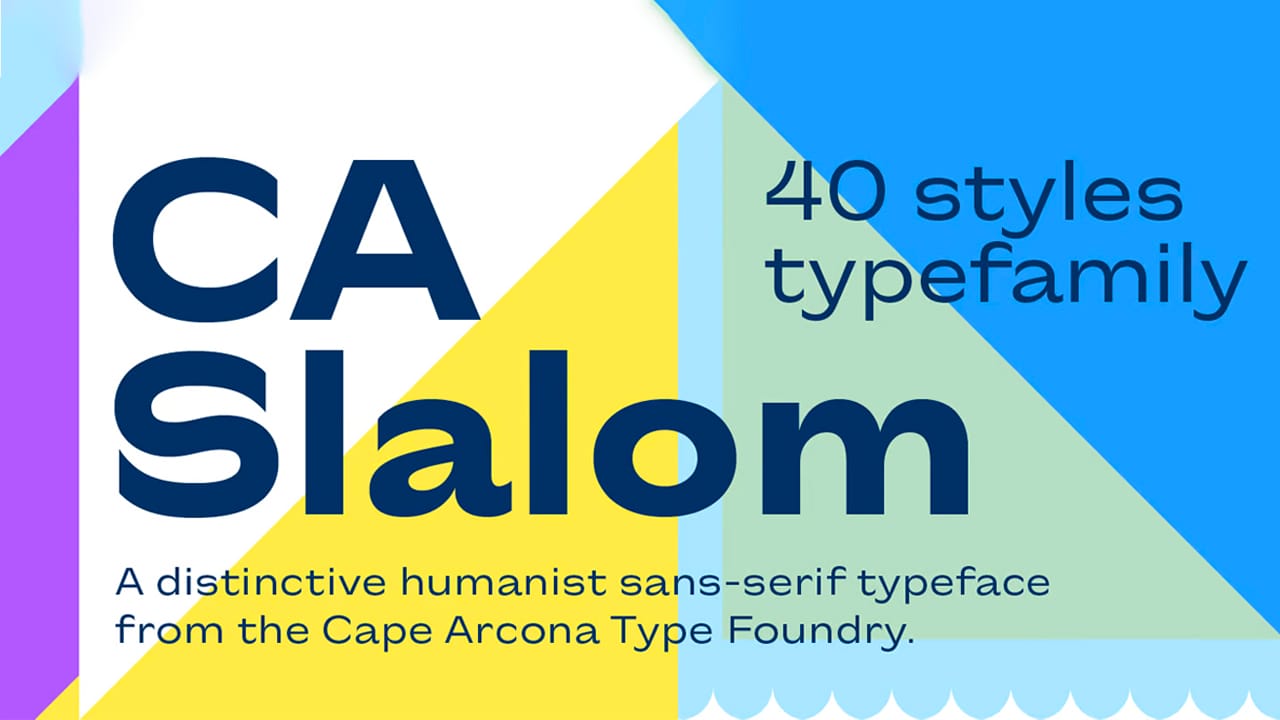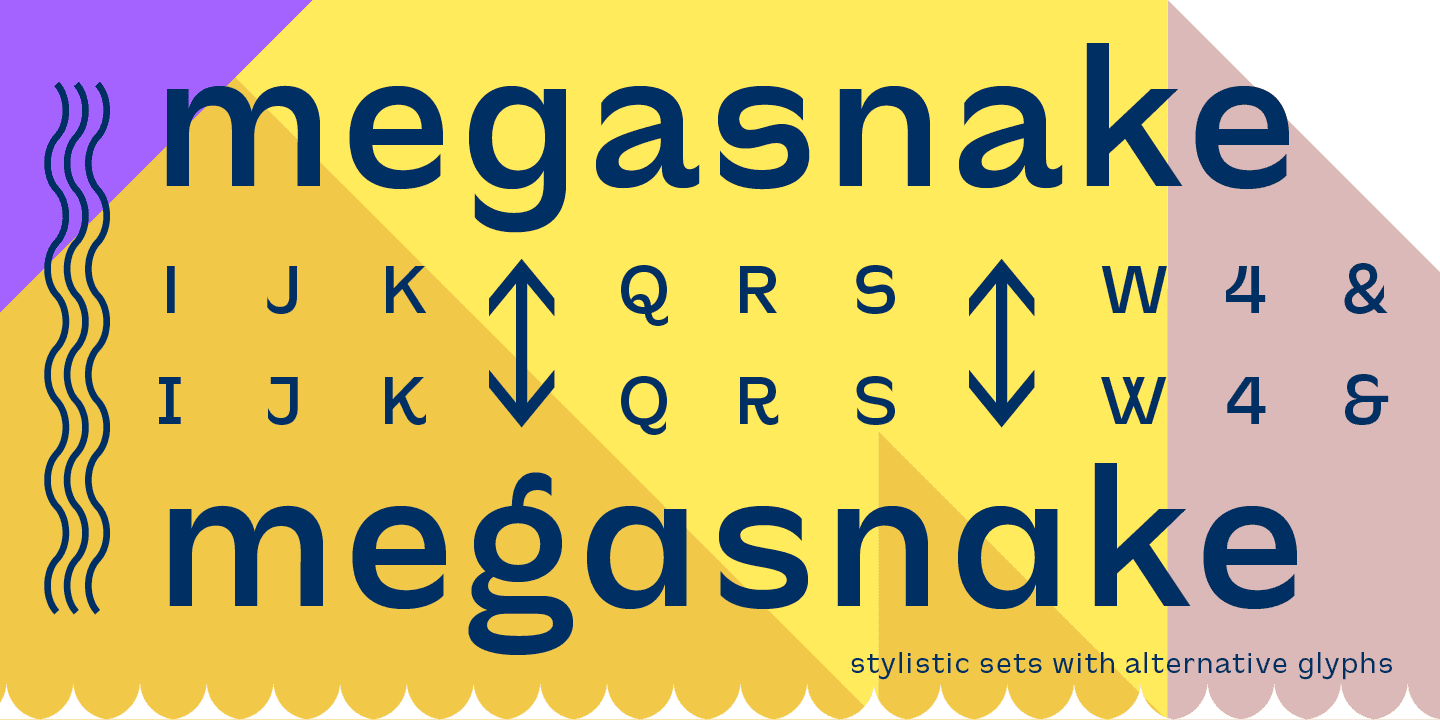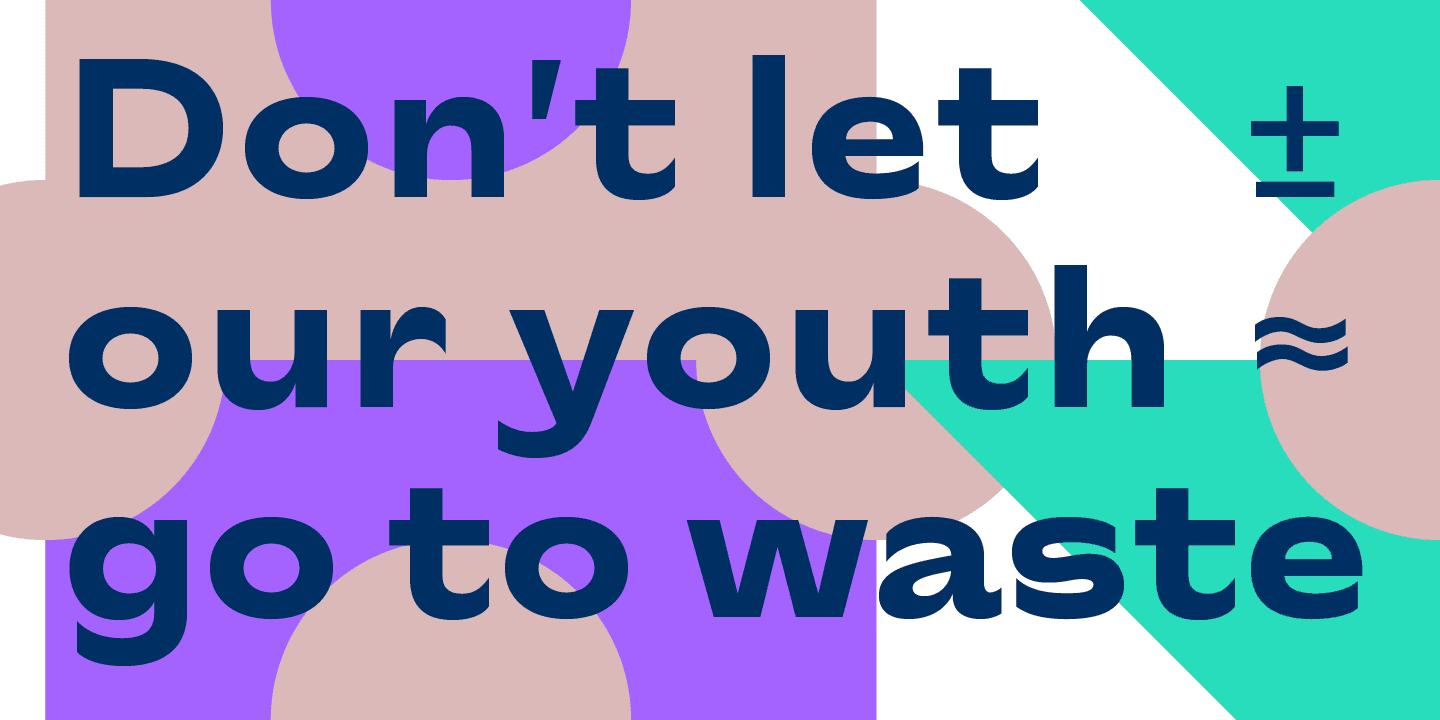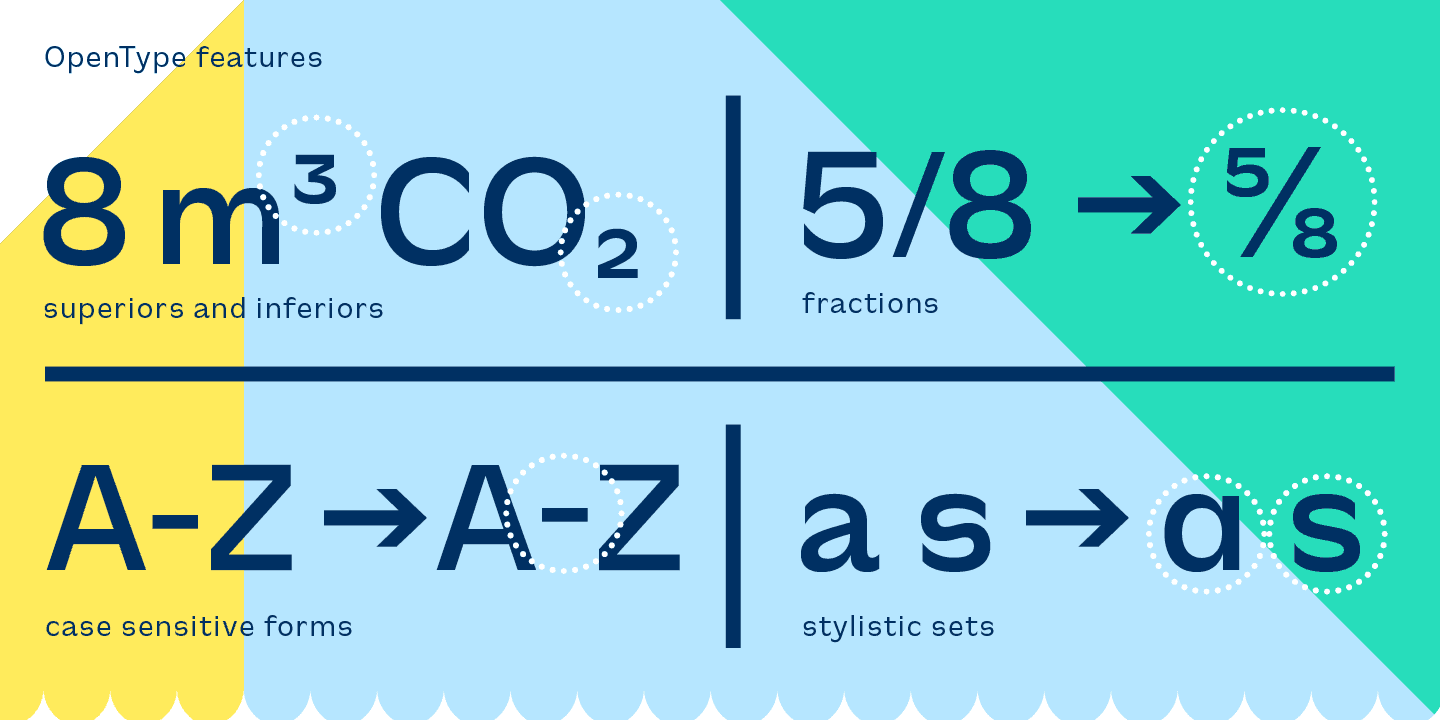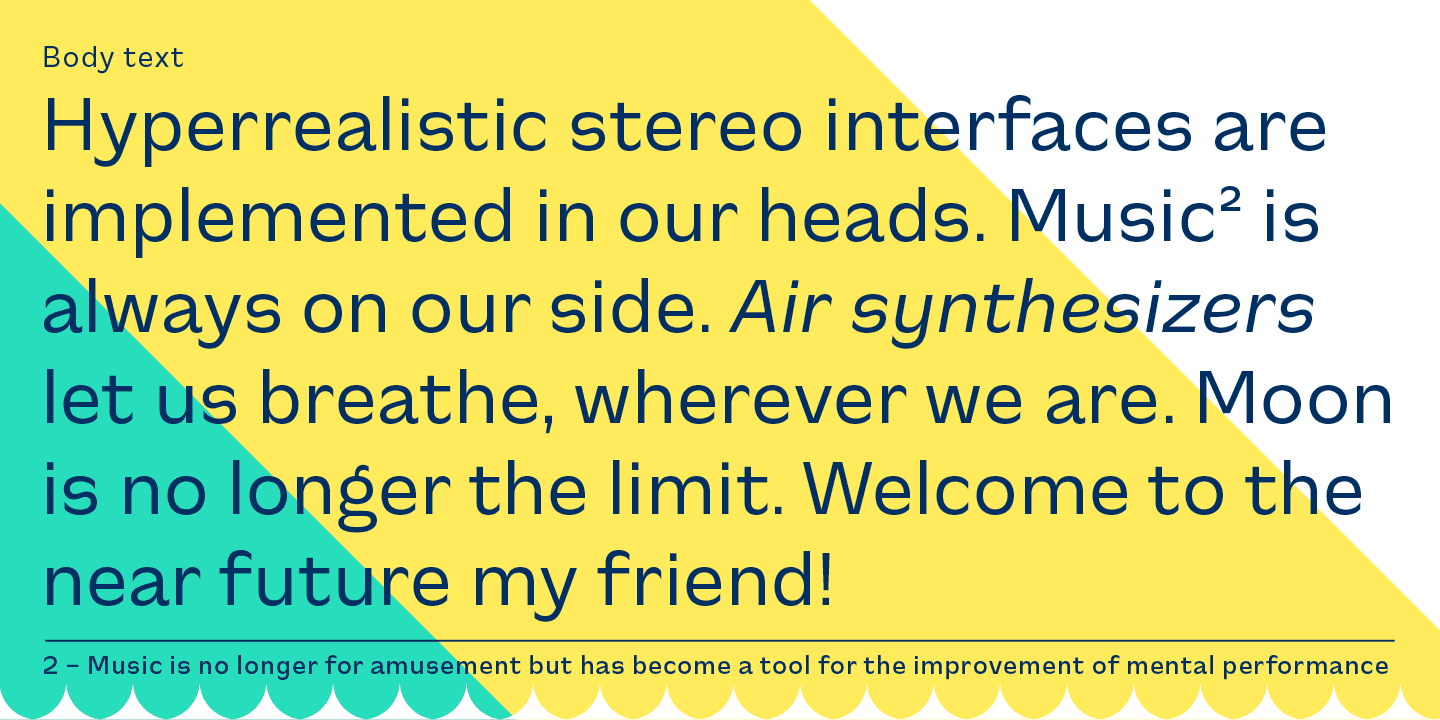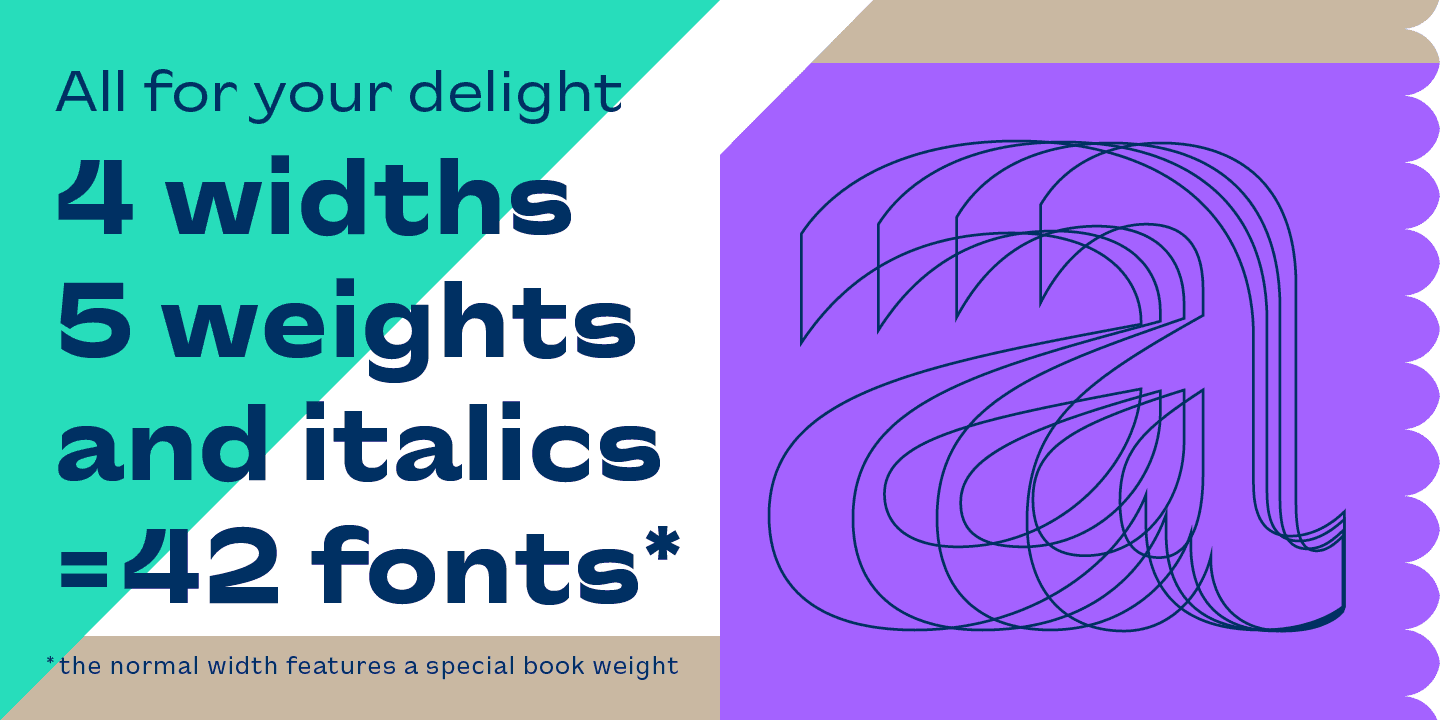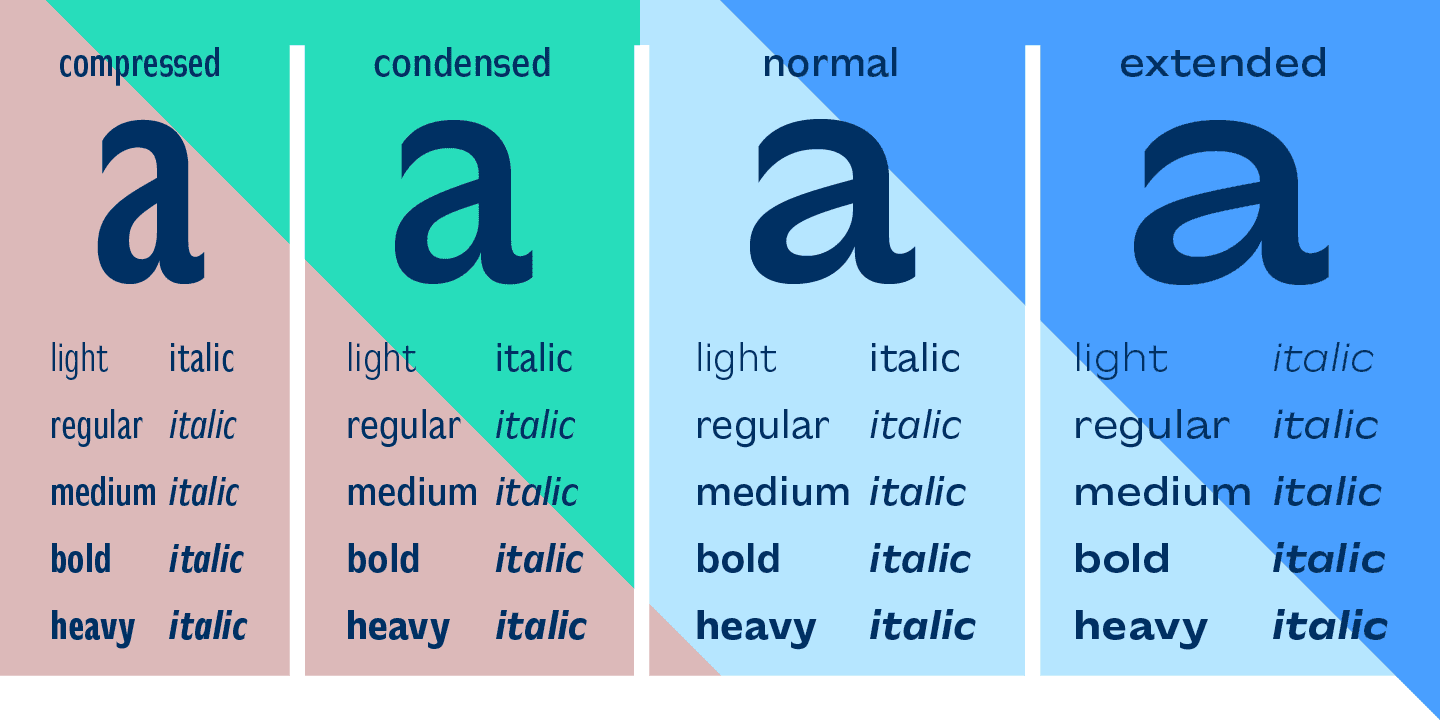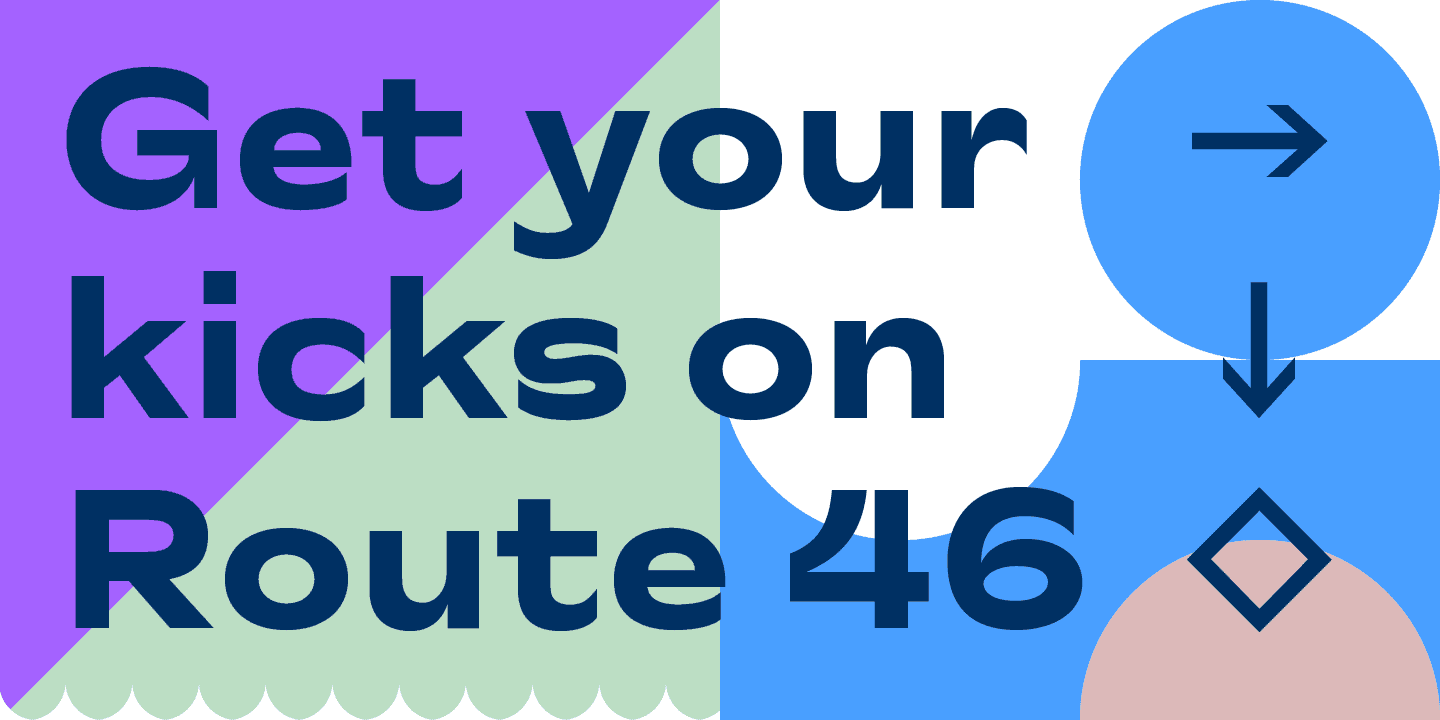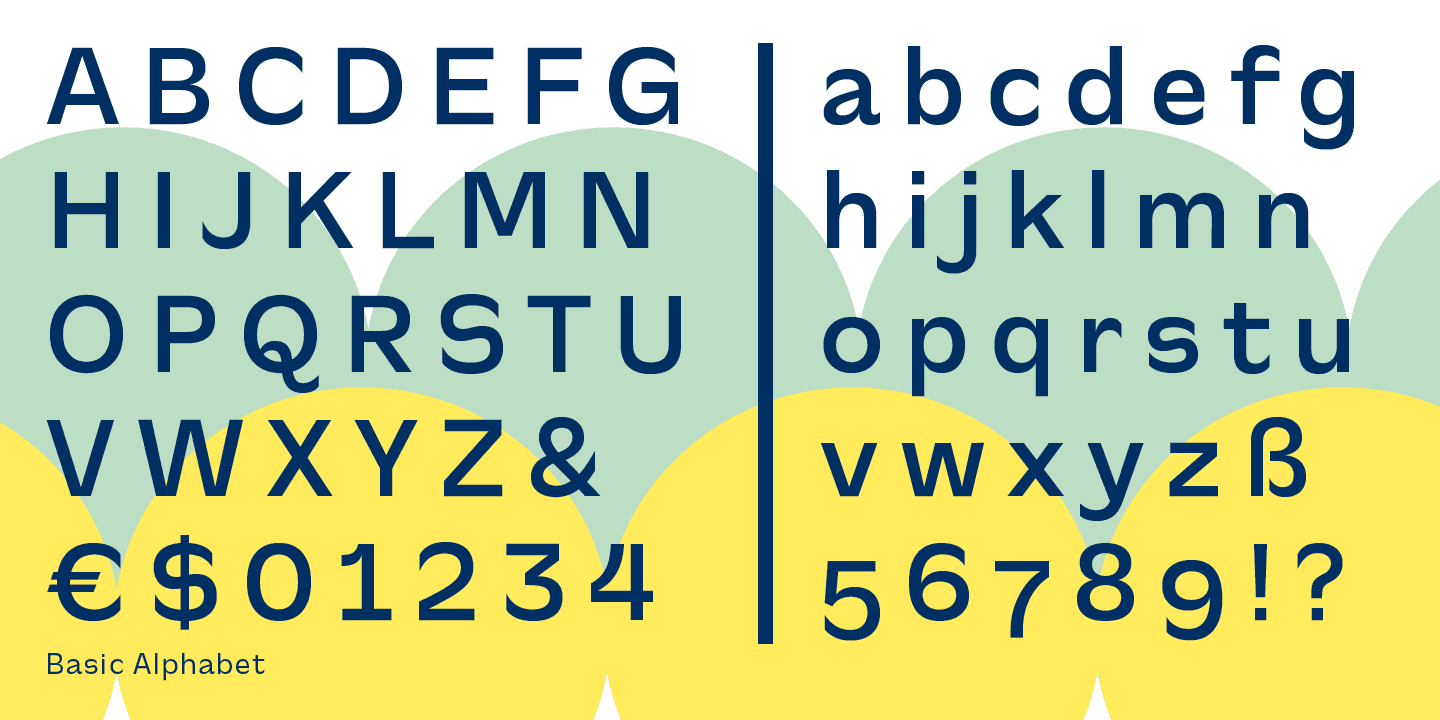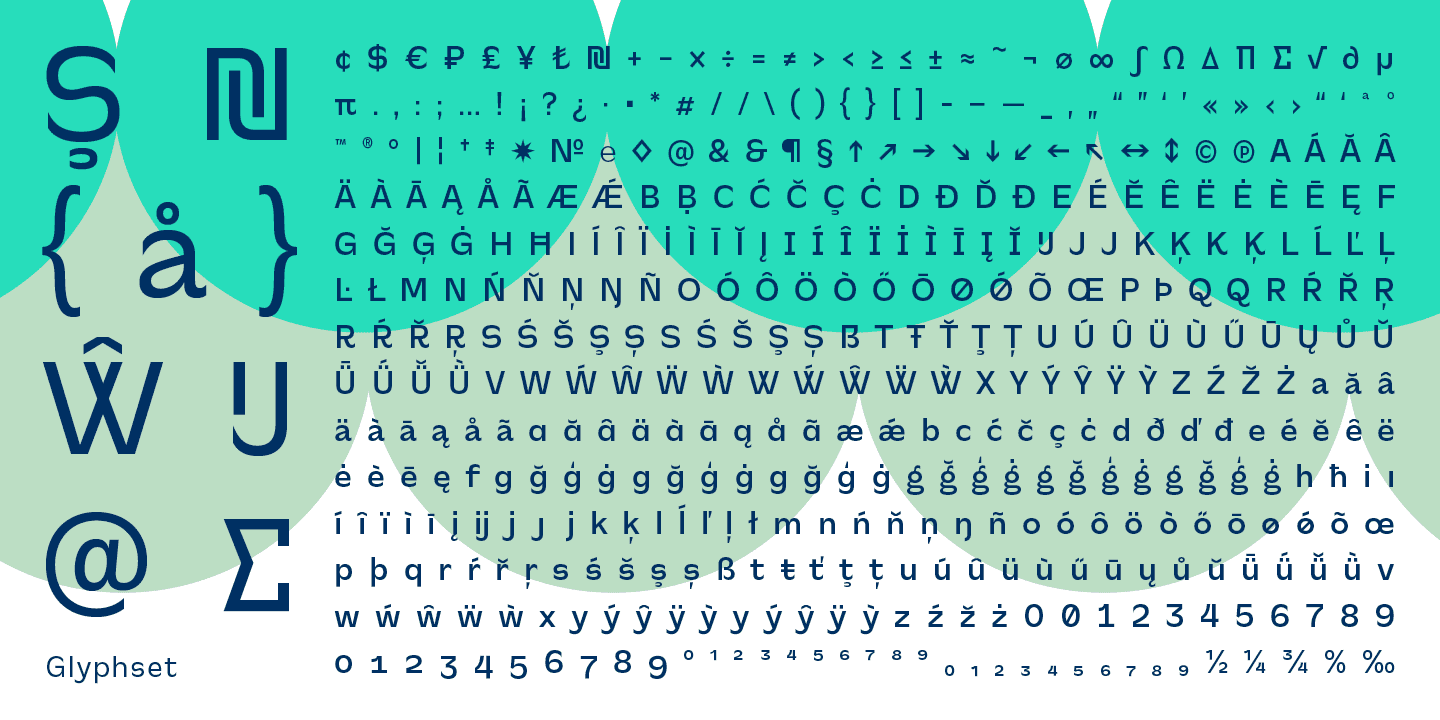
CA Slalom is a font set inspired by classics like Gill and Antique Olive in terms of aesthetics, versatility and usefulness. With impressively designed lines, meticulous and harmonious in design, giving you a font set with a unique flavor.
CA Slalom Font Family includes over 40 fonts in many different variations that you can use in a variety of designs from long text to large headlines.
CA Slalom Extended Font Family includes 10 fonts which is an expanded version with the latest fonts